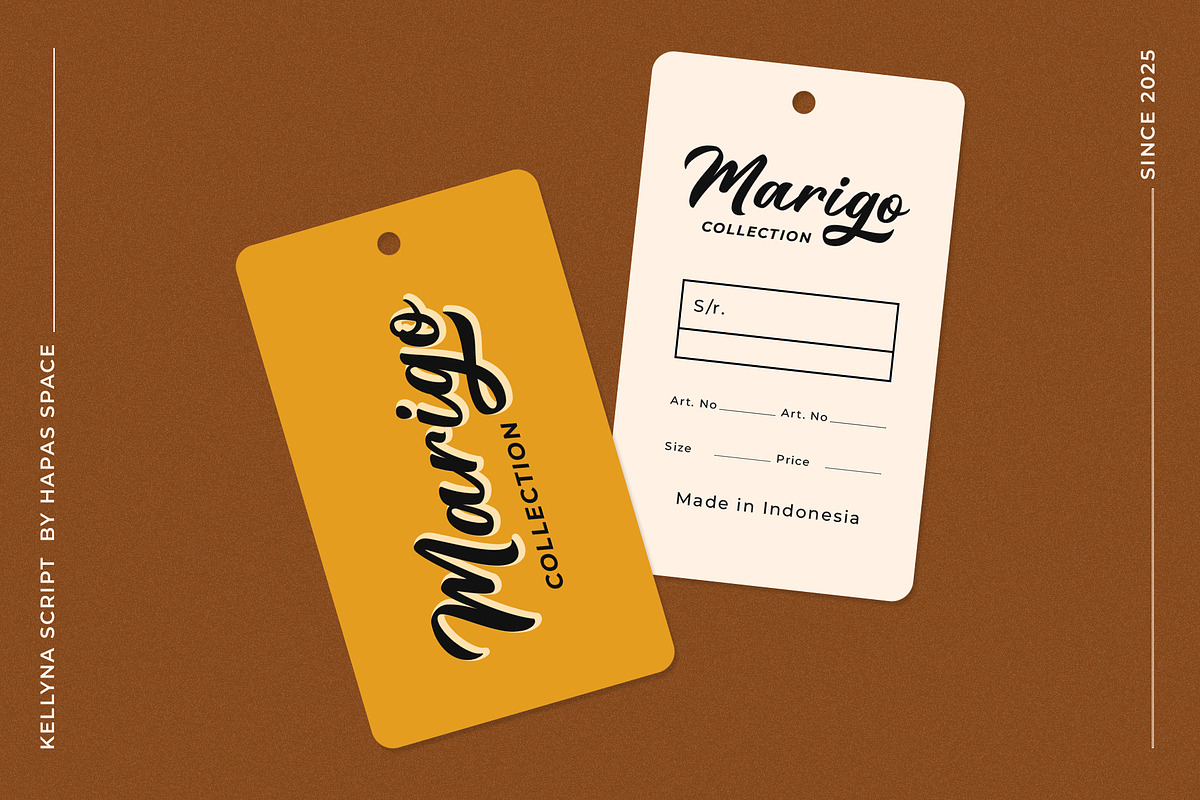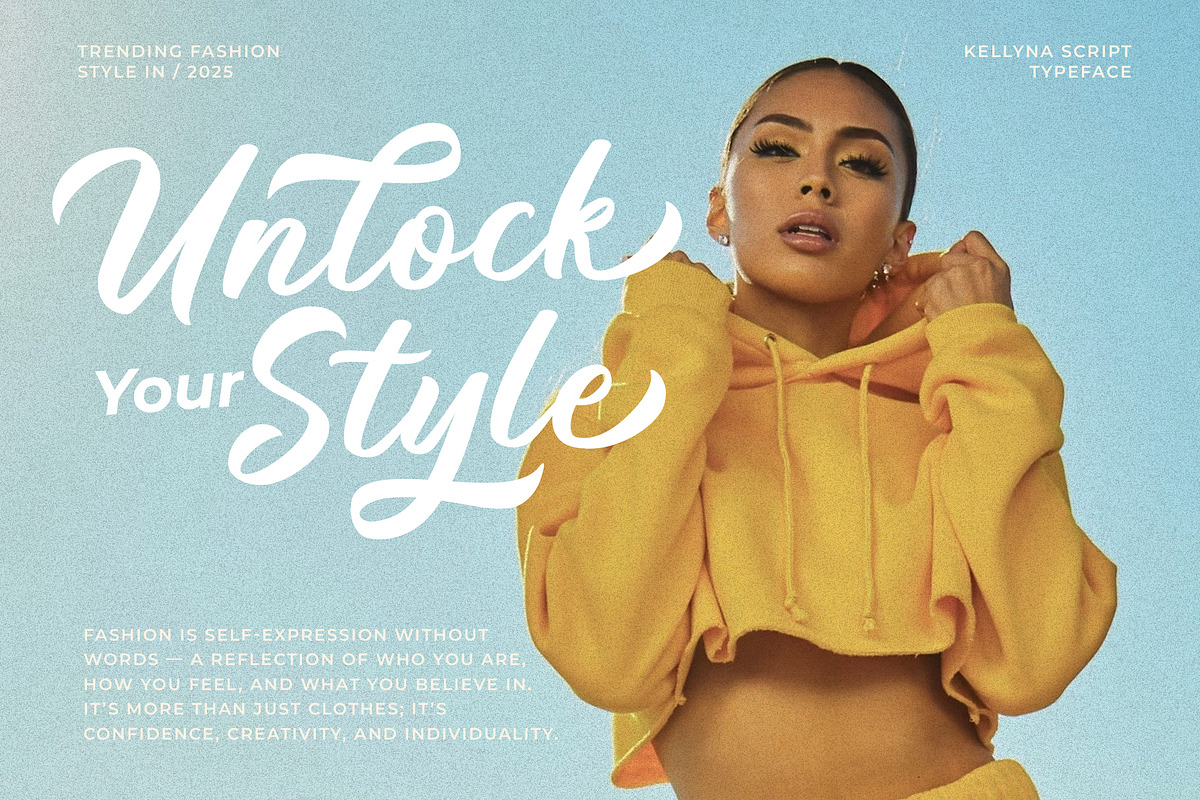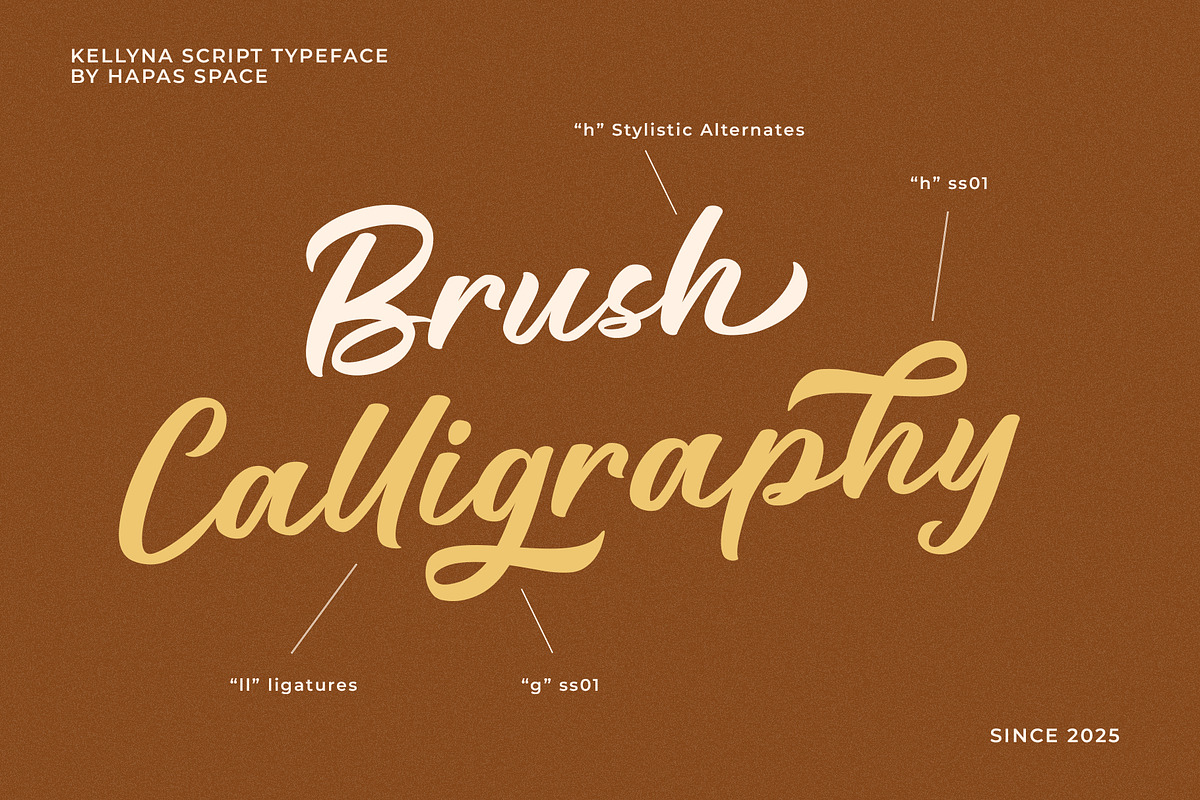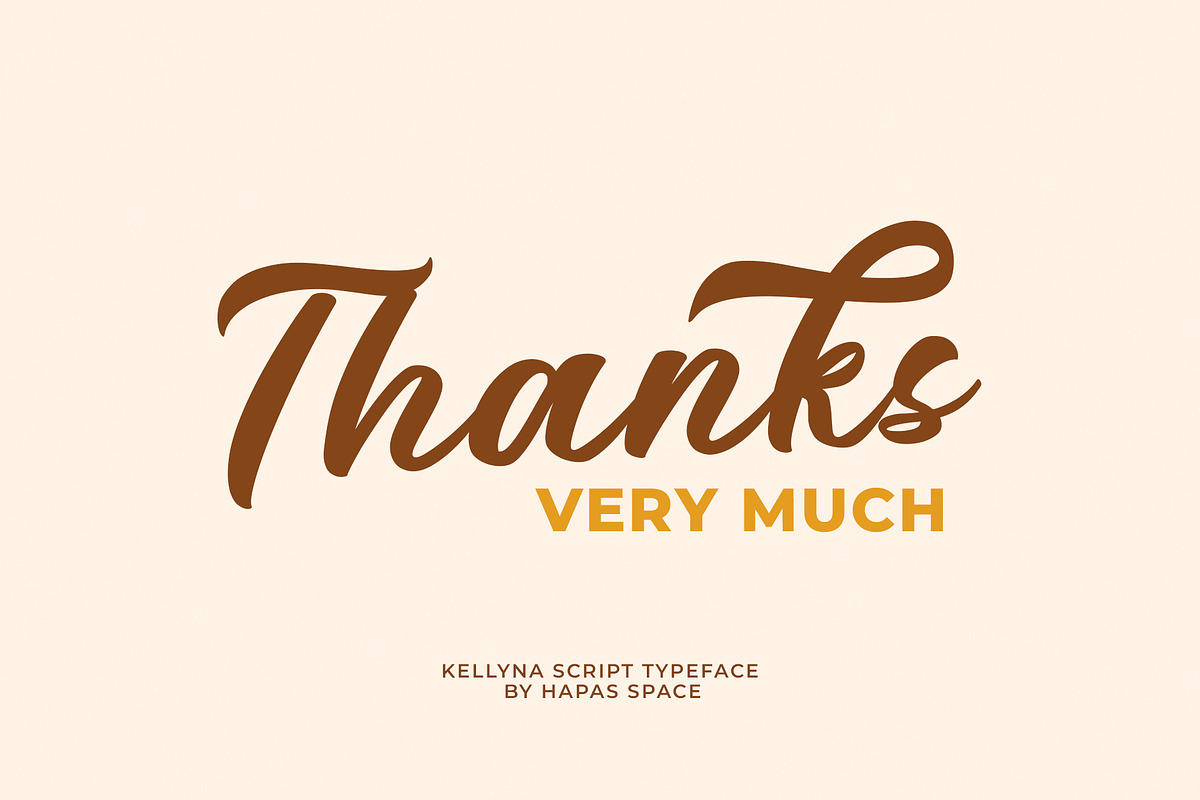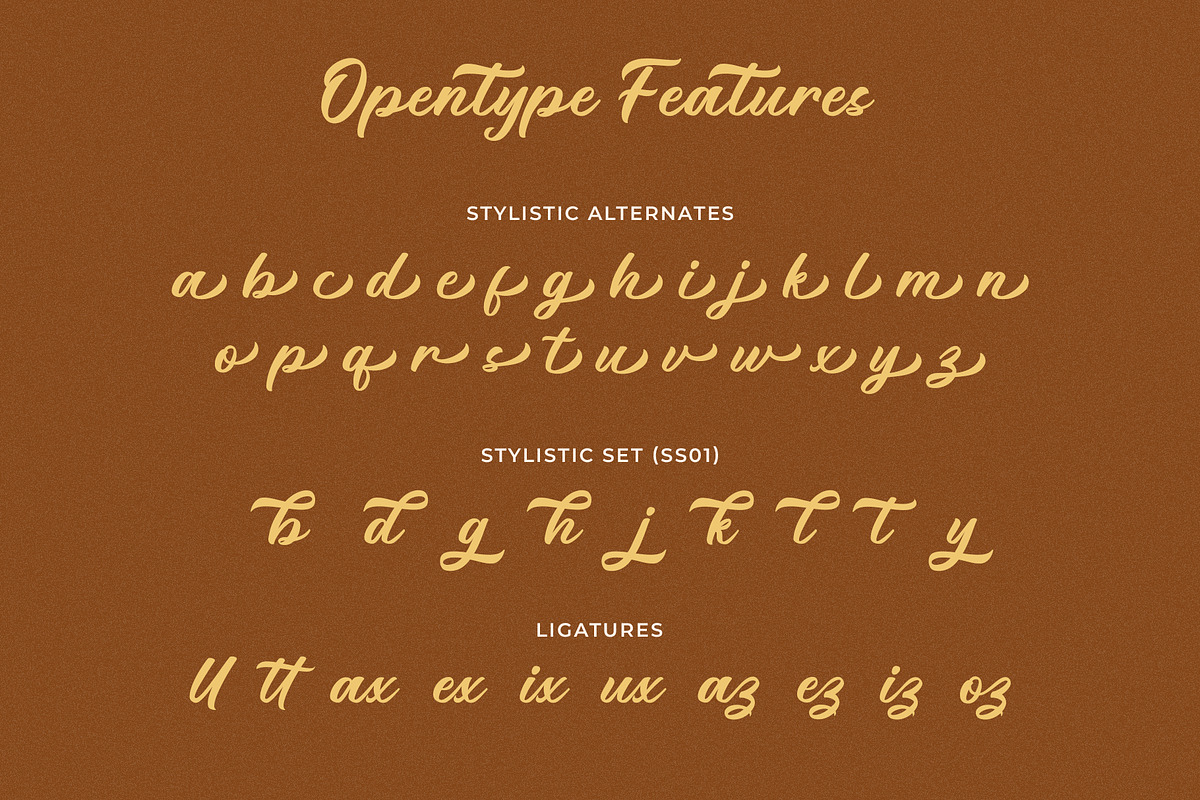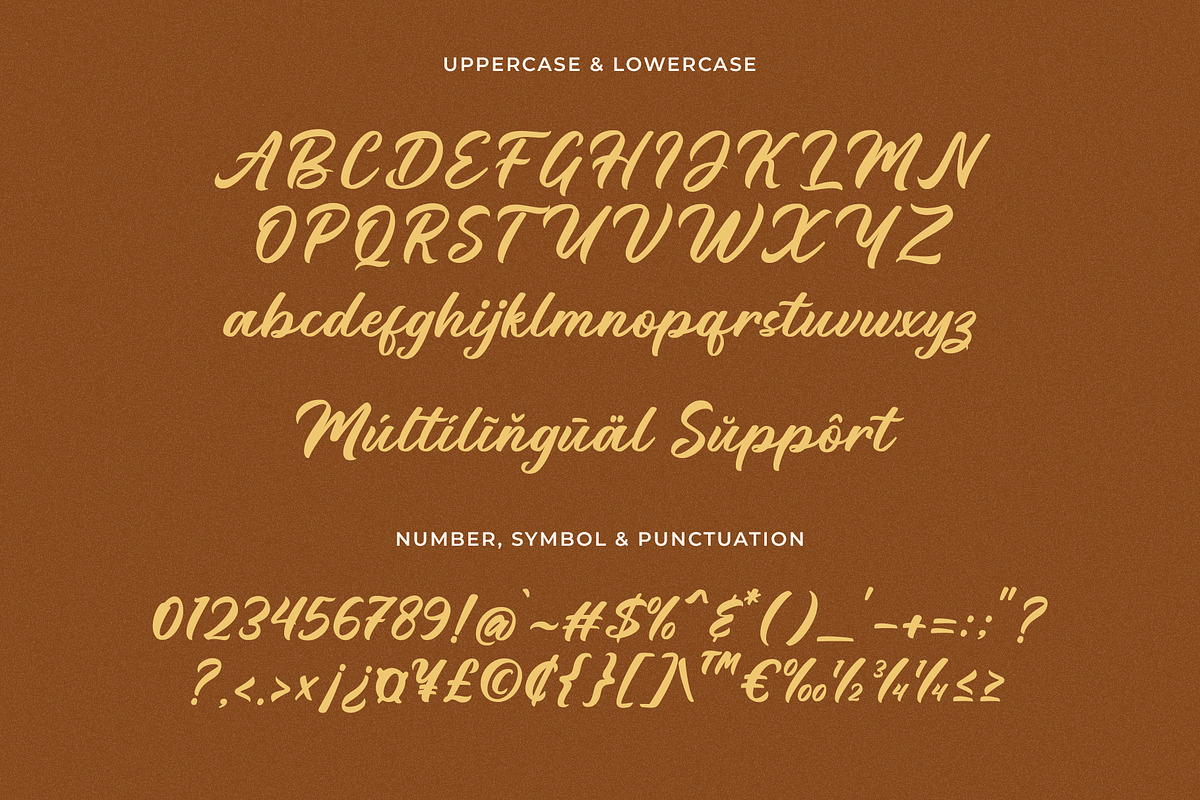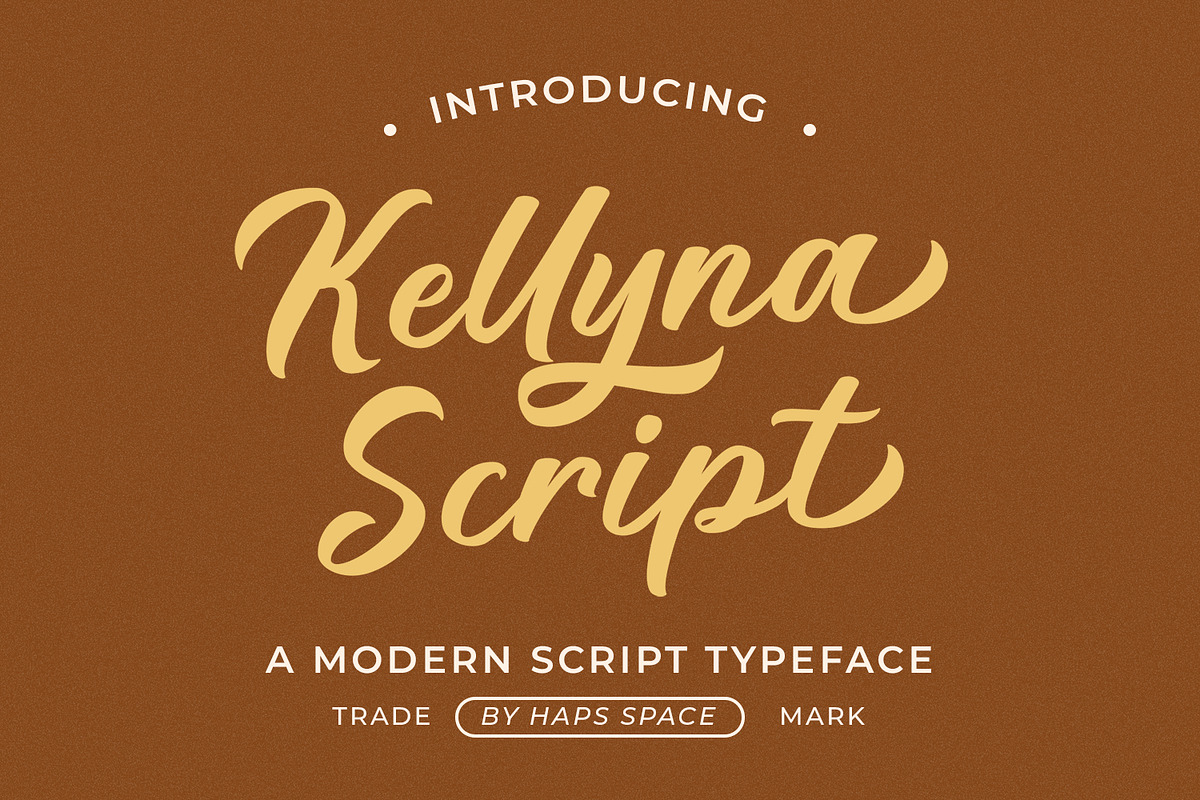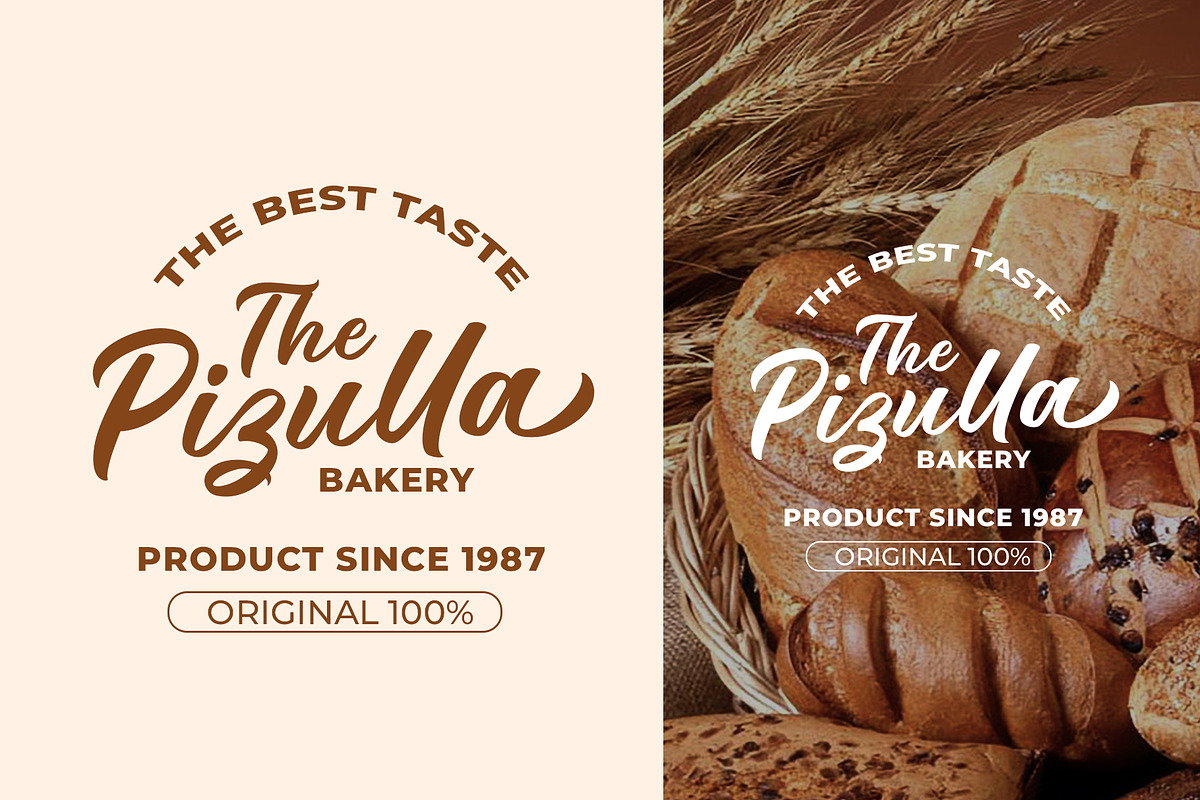
Kellyna Modern Script
Say hello to Kellyna Script, a modern and elegant script font with flowing curves and a beautiful handwritten touch. Designed for those who love stylish lettering with a refined yet approachable look, Kellyna Script is perfect for logos, packaging, social media, wedding invites, and lifestyle branding.
Crafted with care, this typeface offers a balance of softness and professionalism—making it versatile for both feminine and high-end design work.
- Unique Letterforms